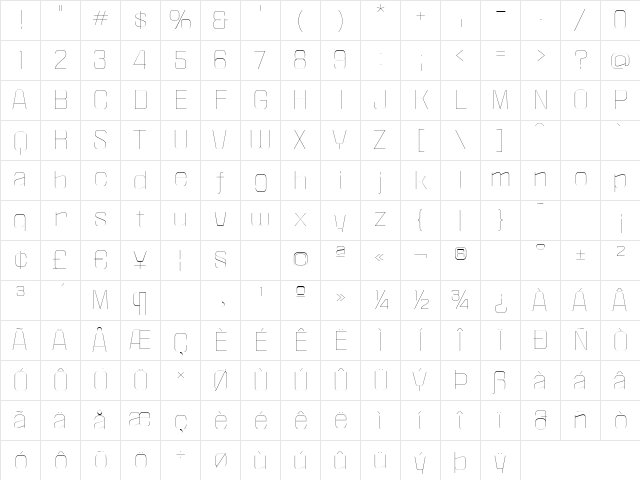
Complete Politica XT Thin glyph index. Displaying only characters natively supported by Politica XT Thin font.
Politica XT is a composed and adaptable typeface that performs quietly and consistently across a wide range of design contexts. Its slender proportions lend an understated elegance to any composition.